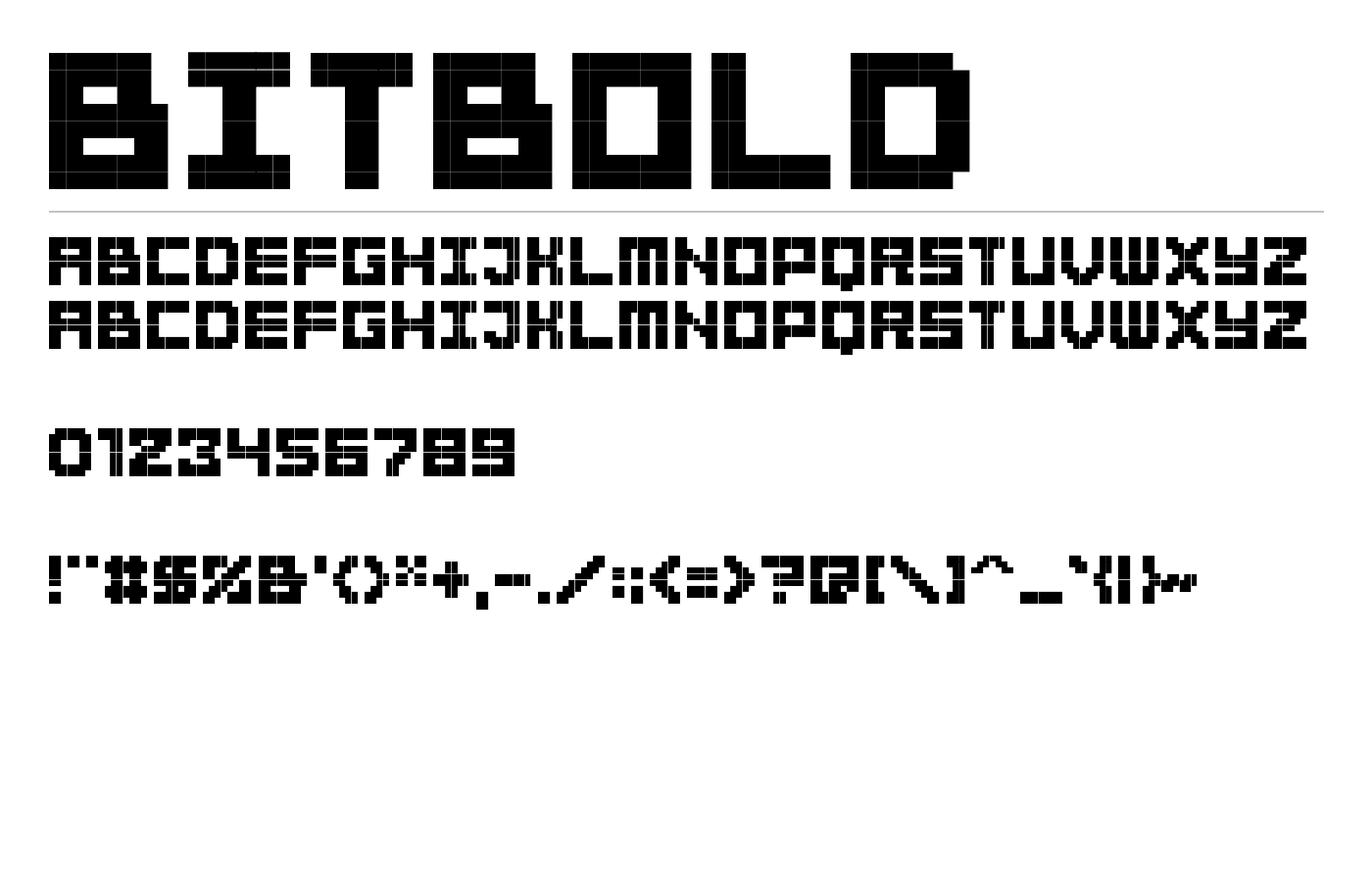
BitBold is a bold, pixel-inspired sans serif font that features blocky, geometric letterforms with a strong digital or retro video game vibe. Its uniform weight, squared shapes, and clean lines make it ideal for tech-themed designs, gaming graphics, and modern display uses where a bold, eye-catching style is required.
BitBold Font